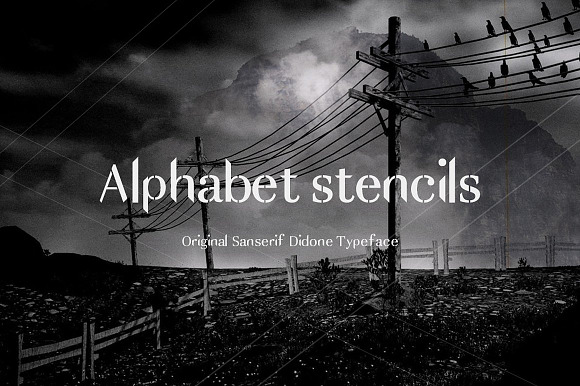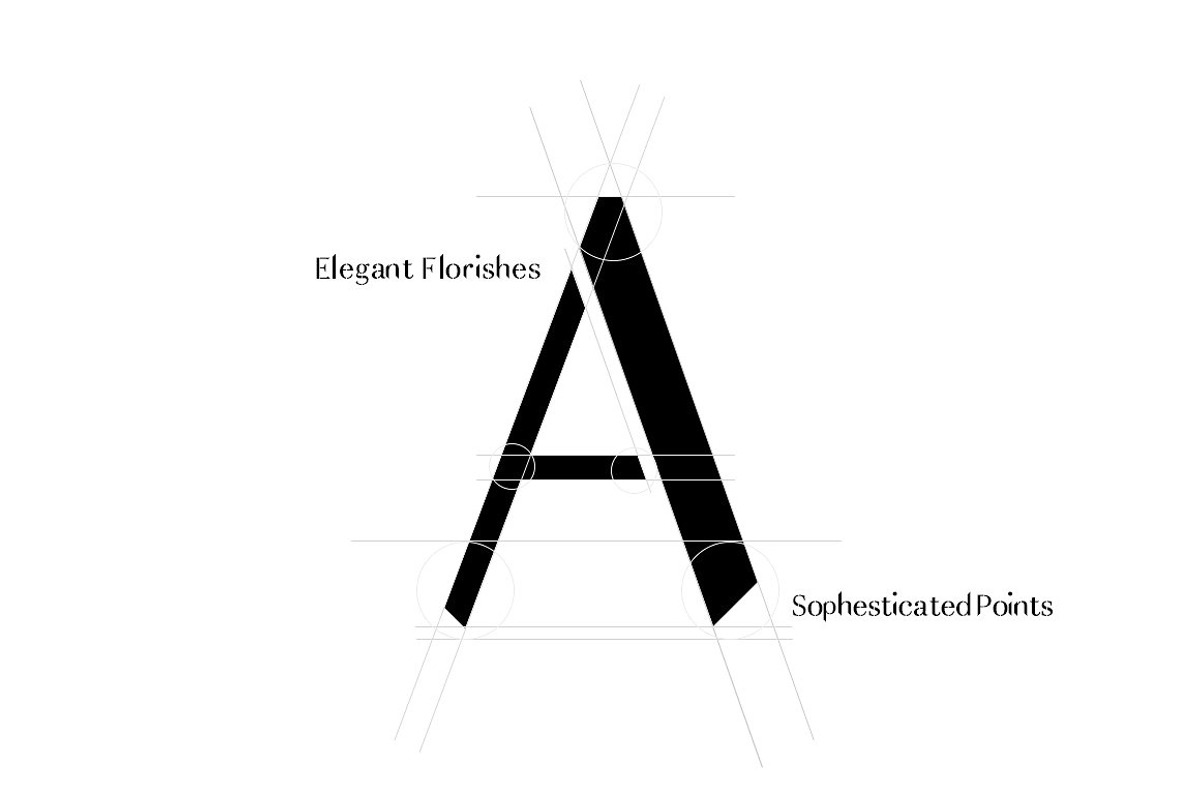
Alphabet Stencils Fonts
Introducing new typeface called Alphabet Stencils which is perfect for Logo, Logo type, quotes, apparel design, invitations, flyer, poster, greeting cards, product packaging, headers, printed quotes, cover album, etc.
Why Alphabet Stencils Fonts is worth a look
Alphabet Stencils Fonts by DuoFankaar fits naturally into Branding, posters, packaging, typography.